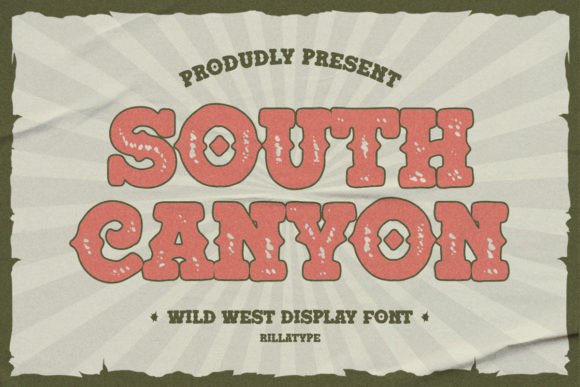
Journey into the untamed heart of the Wild West with South Canyon, an awe-inspiring serif display font that embodies the spirit of fearless cowboys and rugged landscapes. Crafted with bold and distinctive letterforms, South Canyon adds a touch of authenticity and power to your designs, whether it's for branding, posters, or eye-catching headlines. Unleash the regular version for a perfect balance of legibility and boldness, or embrace the vintage charm of the stamp version, evoking the weathered textures of the old West.
But that's not all! South Canyon comes with three intricately detailed illustrations that perfectly capture the essence of the Wild West. These illustrations, featuring a majestic horse, a rugged cowboy, and a vintage wagon, add a touch of narrative and visual interest to your projects. Let South Canyon transport you to a world of adventure, freedom, and cowboy charm, where your designs become living stories of the untamed spirit.
The Wild West is a land of legends, a place where dreams are forged in the crucible of adventure. South Canyon is your chance to capture that spirit, to bring the untamed beauty of the frontier to your designs. It's a font that speaks of courage, determination, and the boundless possibilities that lie beyond the horizon.
Embrace the call of the Wild West with South Canyon. Let its bold letterforms and captivating illustrations guide you on a creative journey that knows no limits. It's the perfect font for designers who want to make a statement, to create designs that leave an indelible mark on the minds of their audience.
With its versatility and evocative power, South Canyon is destined to become your go-to font for a wide range of projects. From branding and marketing materials to posters and social media graphics, South Canyon will add a touch of rugged sophistication that sets your designs apart.
Don't wait any longer. Saddle up and embrace the Wild West spirit with South Canyon. Let your designs roam free, unbridled by convention, and fueled by the boundless imagination that lies within you.